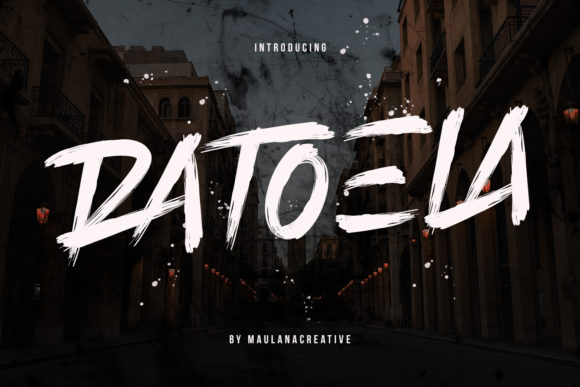
Behold the captivating Ratoela display font, a masterpiece that will add a touch of urban chic to your digital creations. Designed by the renowned Maulana Creative, Ratoela is a brushed display font that stands out with its rough texture and neat lines.
Unleash your creativity and let Ratoela's urban style elevate your designs. Its distinct character is perfect for adding a personal touch to your projects, whether it's a signature in a PDF document, a stylish logo, or a unique social media post.
Ratoela's versatility knows no bounds. It's the perfect choice for those who seek a font that commands attention and leaves a lasting impression. Its rough texture adds a touch of edginess, while its neat lines ensure readability and clarity.
With Ratoela, you'll captivate your audience and make a statement. Its bold strokes and urban flair will add a touch of sophistication to your designs, making them stand out from the crowd.
Don't settle for ordinary fonts. Embrace Ratoela's urban elegance and create designs that exude confidence and style. Let your creativity shine and make a statement with every project.